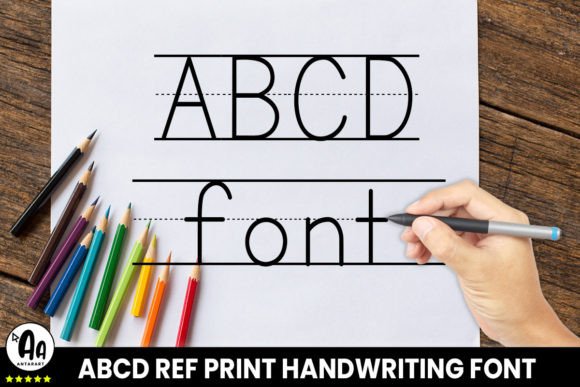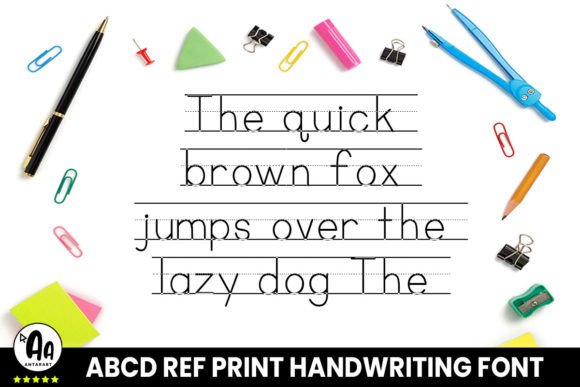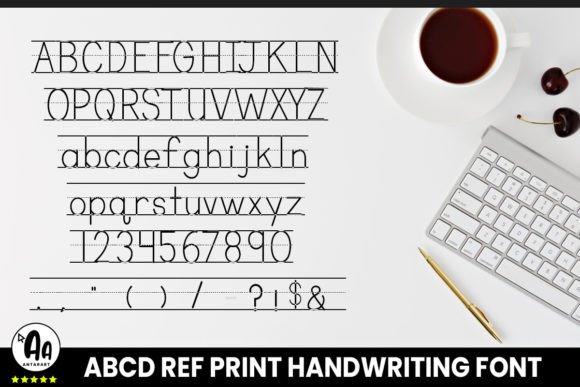
Introduction to Abcd Ref Lined2 Font
ABCD Ref Lined2 (ABCD Ref font family) This practical display font is based on the D’Nealian Method US school and helps you create thousands of worksheets.
It is a great learning resource for those who want to learn or teach the print alphabet enjoyably and interactively .
Key Features of Abcd Ref Lined2 Font
Why Choose Abcd Ref Lined2 Font?